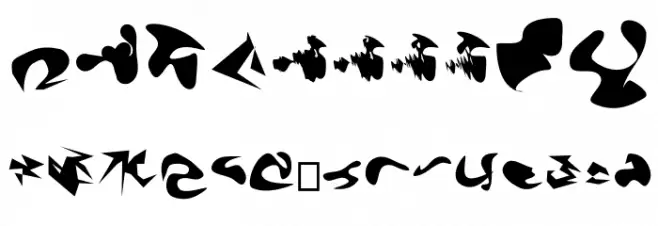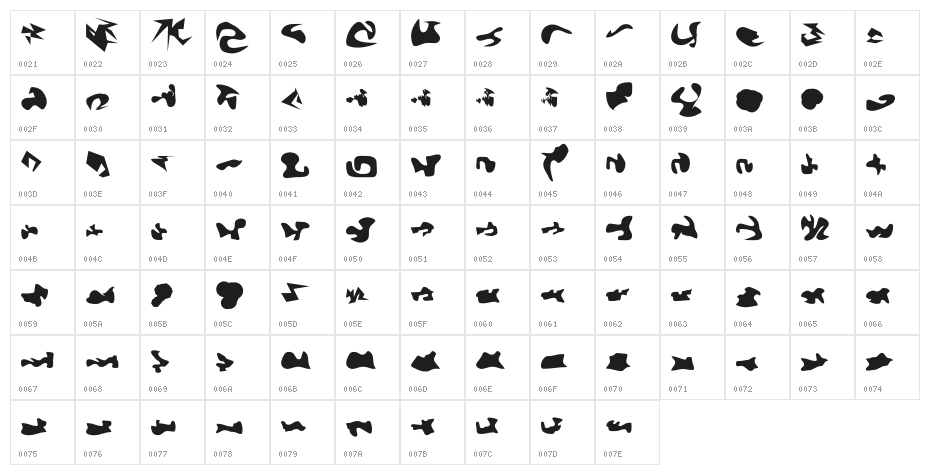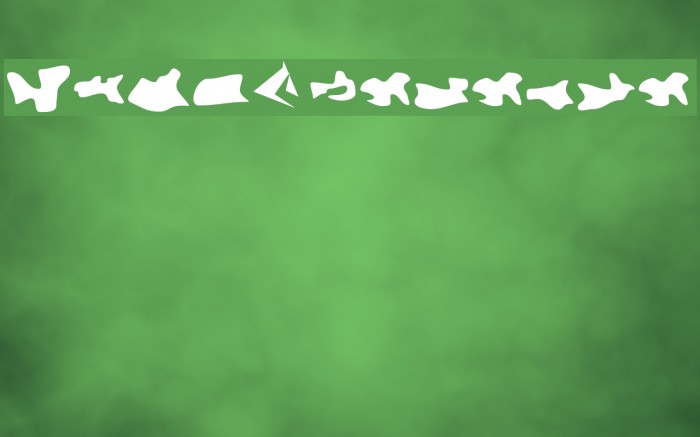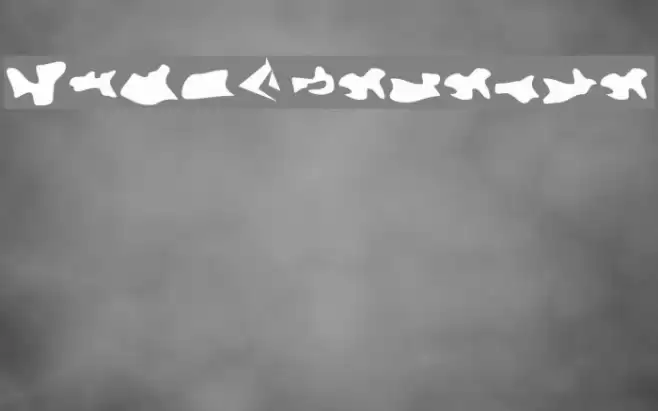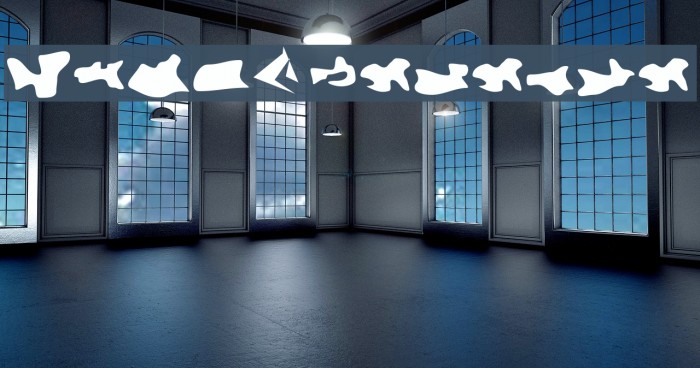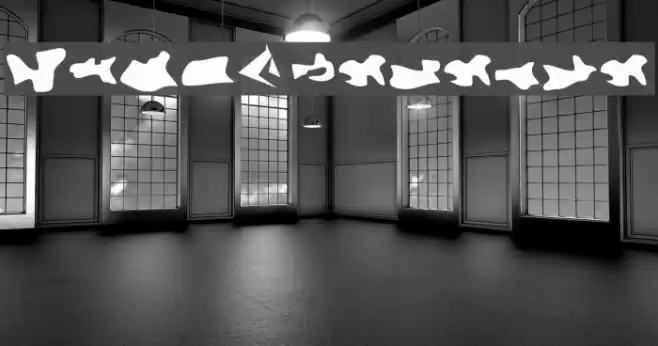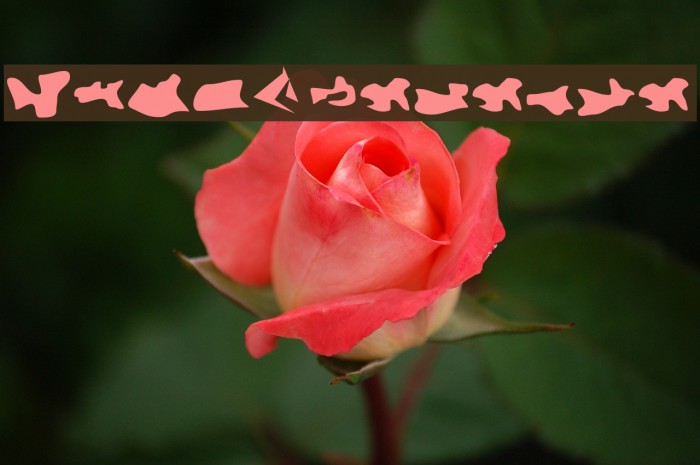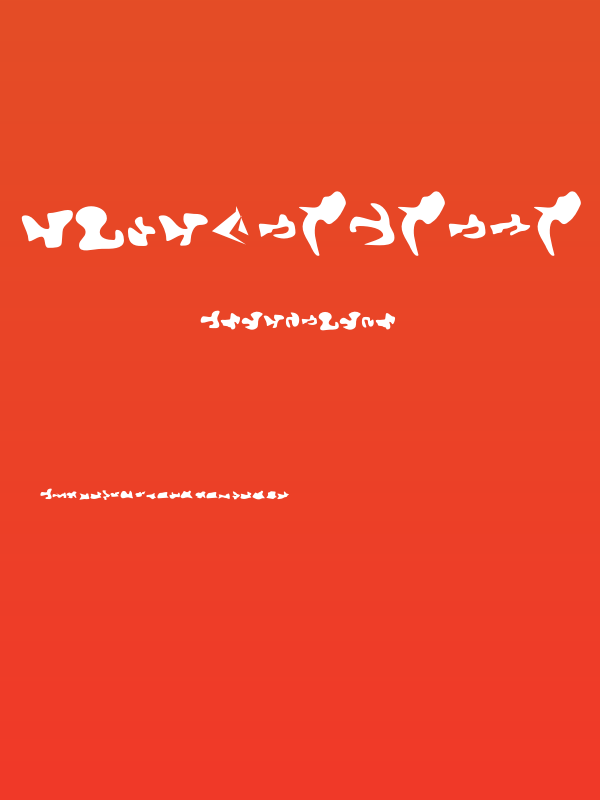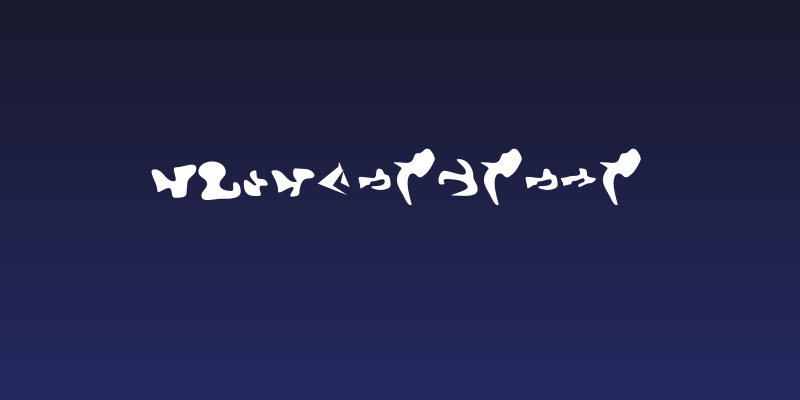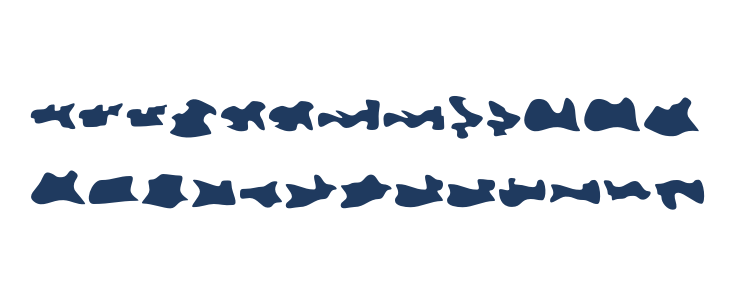
Camo3 Reverse Font
This font features a highly abstract and artistic design, with characters that appear to be inspired by organic shapes and camouflage patterns. The letters are bold and irregular, with a playful and dynamic flow that suggests movement. Each character is unique, with varying thickness and curves that create a sense of depth and texture. The overall appearance is striking and unconventional, making it ideal for creative and experimental projects. The font's distinct style is reminiscent of modern art, with a focus on visual impact and originality.
| Use Case | Logos, Posters, Album Covers |
| Proposed Projects | Ideal for artistic projects, experimental designs, album covers, and creative branding. |